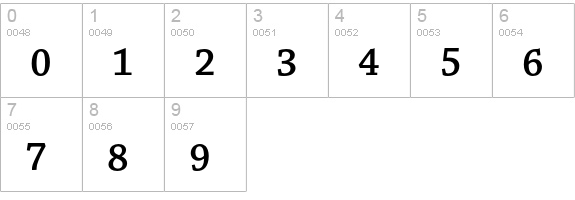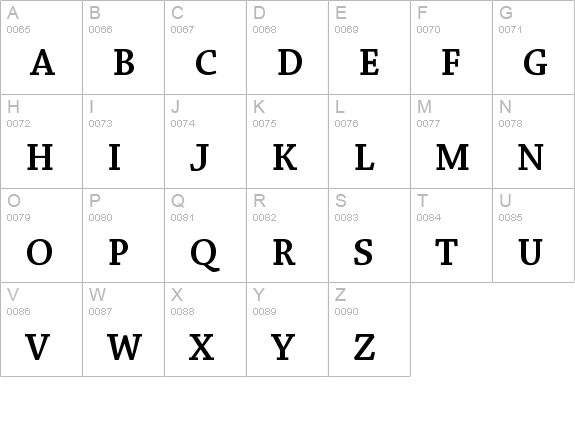
Chaparral Pro Semibold Font Details
Chaparral Pro Semibold is a sub-bold, structured variant in the Chaparral typeface family \xE2\x80\x94 well suited to sub-headlines and emphasised passages.
Chaparral Pro Semibold font is a versatile and sophisticated typeface that strikes the perfect balance between elegance and readability. Its sturdy yet graceful design makes it ideal for a wide range of projects, from branding and advertising to editorial and web design. The semi-bold weight adds a touch of boldness without overpowering the overall composition, making it a great choice for headings, subheadings, and other prominent text elements. What sets Chaparral Pro Semibold font apart is its unique blend of modernity and tradition, with a distinctive flair that sets it apart from other typefaces. Its clean lines and subtle curves give it a timeless appeal that will ensure your designs stand out from the crowd. And the best part? Chaparral Pro Semibold font is available for free download at FontsMarket.com, so you can start using it in your projects right away. Whether you're working on a branding project, a publication, or a website, this versatile font is sure to add a touch of sophistication and style to your designs. Download it today and see for yourself why Chaparral Pro Semibold font is a must-have for any designer's toolkit.